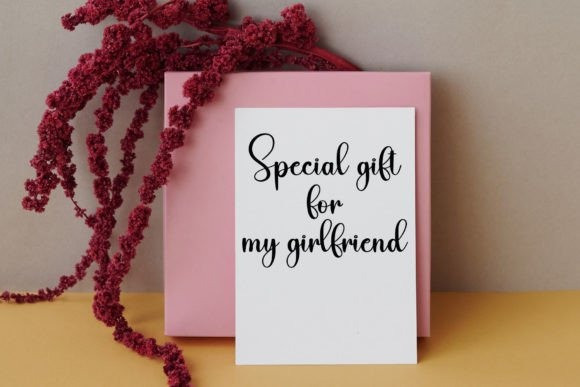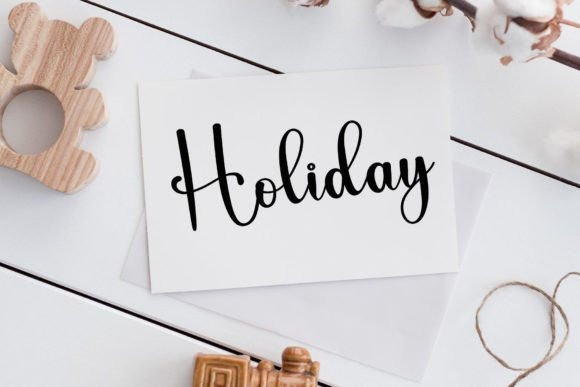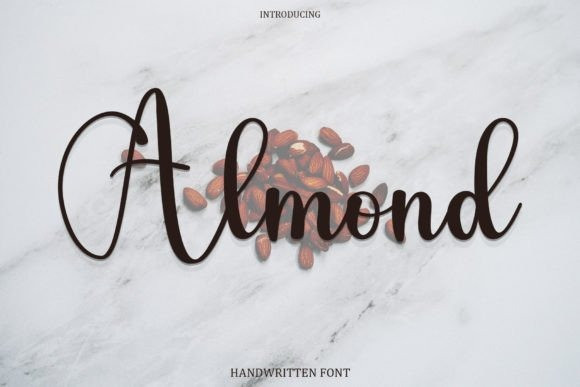
Almond Script Font
Almond Script Font, is a sweet and beautiful handwritten font. Featuring characters that dance along the baseline, this font will add a luxury spark to any design project you wish to create!